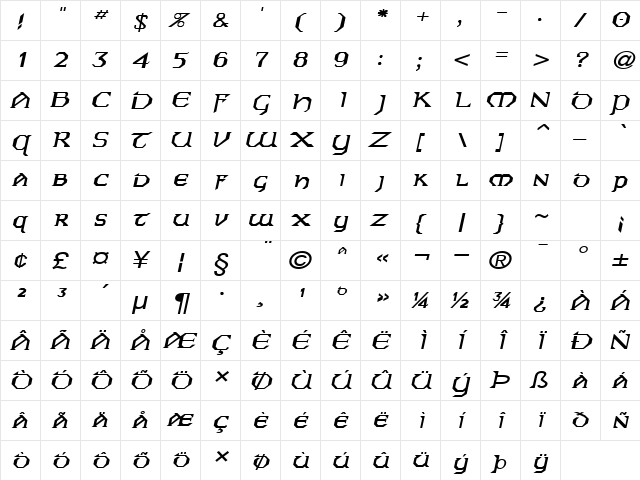
Norman-Extended Italic
Design Context for Norman-Extended Typeface
Norman-Extended is a composed and adaptable typeface that performs quietly and consistently across a wide range of design contexts. The dynamic lean of this cut emphasises speed and emphasis in any layout.
Pro Tip: Use Norman-Extended for emphasis, pull quotes, and subheadings where its slanted energy can add rhythm to the layout.